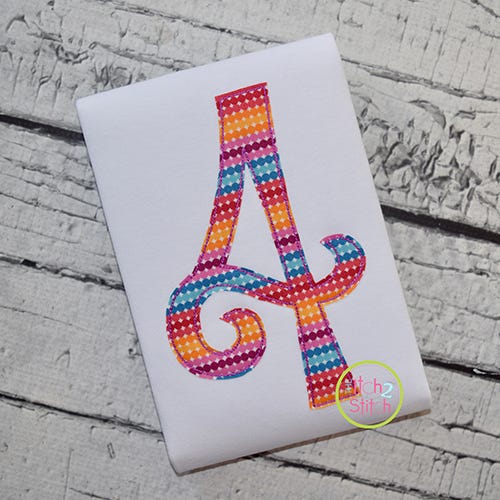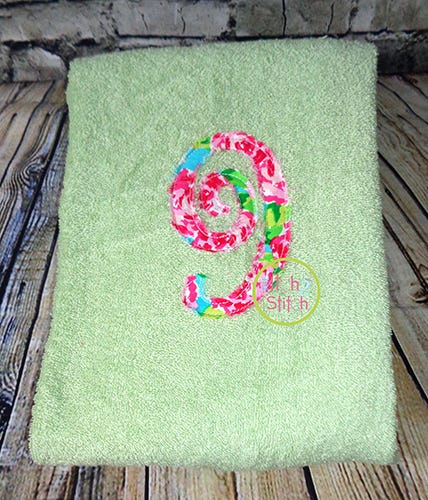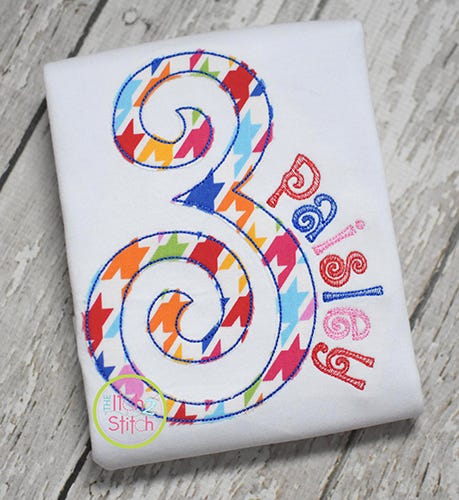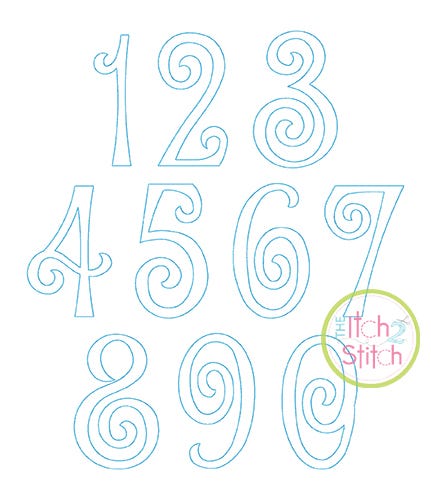
This is a bean stitch applique set. Each number has placement and tack down stitches, then is finished off with a triple bean stitch. When trimming the numbers, leaving a quarter-inch seam allowance allows for fraying and a raggy look. Trimming close to the line will give a more polished look (depending on your material you may wish to use a fusible product like Heat N Bond Lite to prevent fraying).